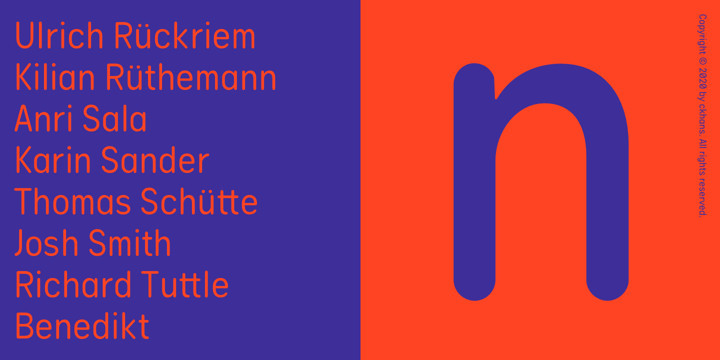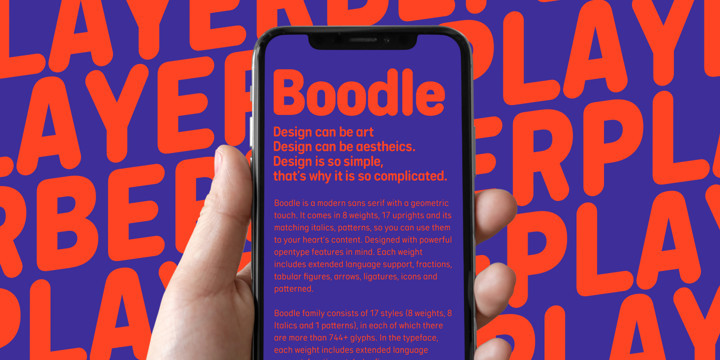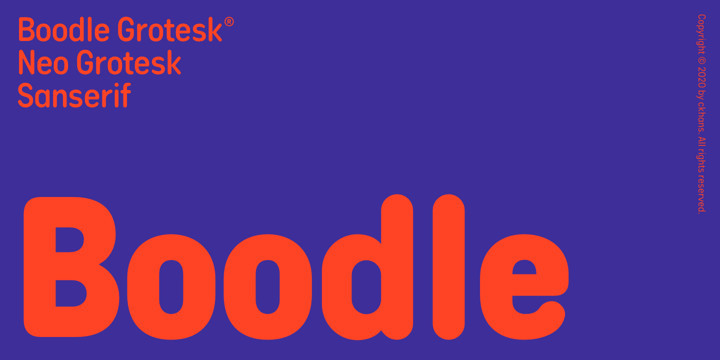
Boodle Font
Boodle is a modern sans serif with a geometric touch. It comes in 8 weights, 17 uprights and its matching italics, patterns, so you can use them to your heart’s content. Designed with powerful opentype features in mind. Each weight includes extended language support, fractions, tabular figures, arrows, ligatures, icons and patterned.
Boodle family consists of 17 styles (8 weights, 8 Italics and 1 patterns), in each of which there are more than 744+ glyphs. In the typeface, each weight includes extended language support, fractions, tabular figures, arrows, ligatures and more. Perfectly suited for graphic design and any display use. It could easily work for web, signage, corporate as well as for editorial design. documents and folders, mobile interface.